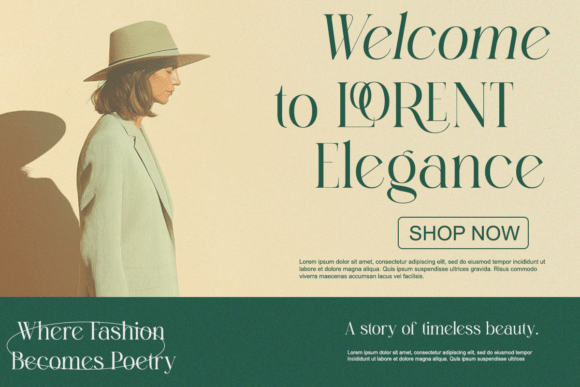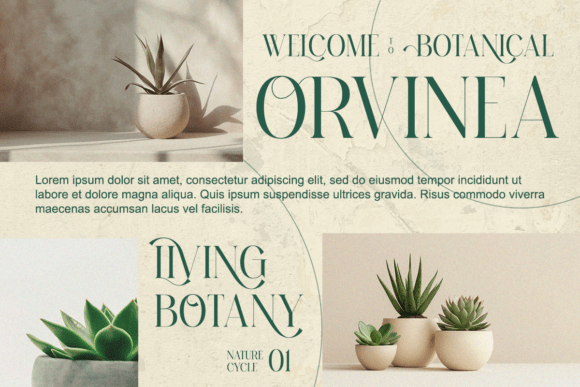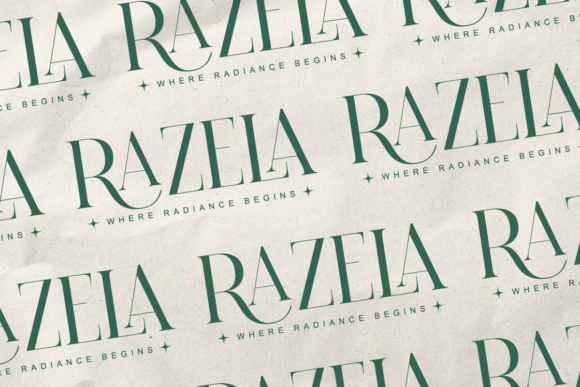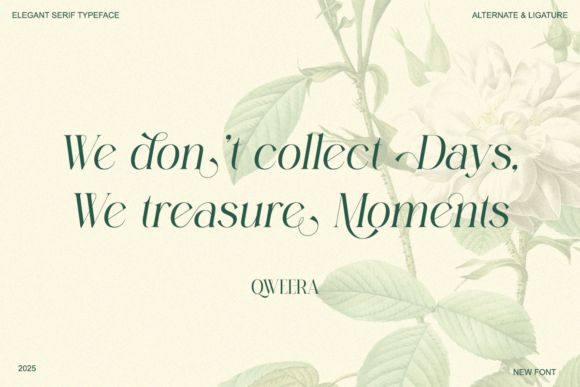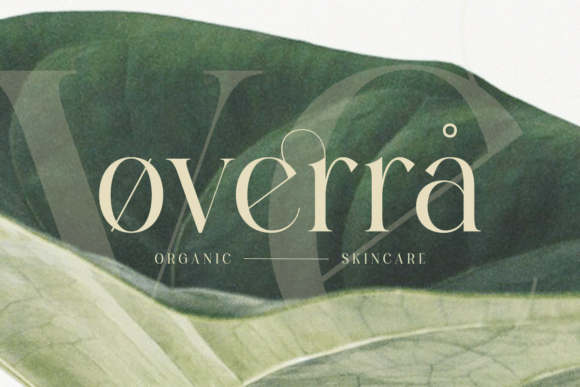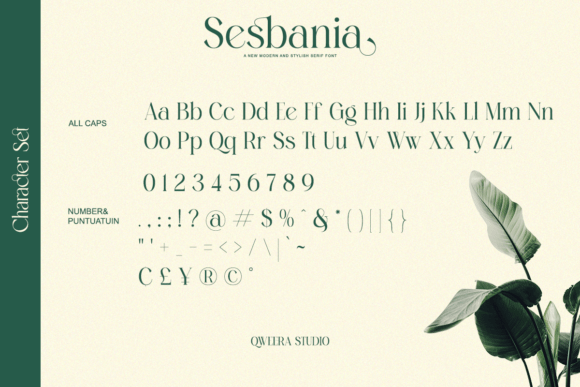
Introduction to Sesbania Font
Sesbania Font is a modern minimal serif typeface that embodies elegance and natural sophistication.
With its clean shapes and graceful ligatures, itโ€™s ideal for branding, packaging, magazines, and product design Designed for creators who appreciate organic aesthetics, Sesbania elevates every layout with calm luxury.